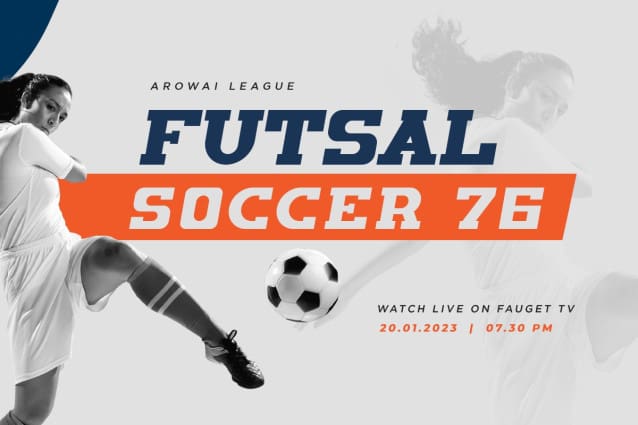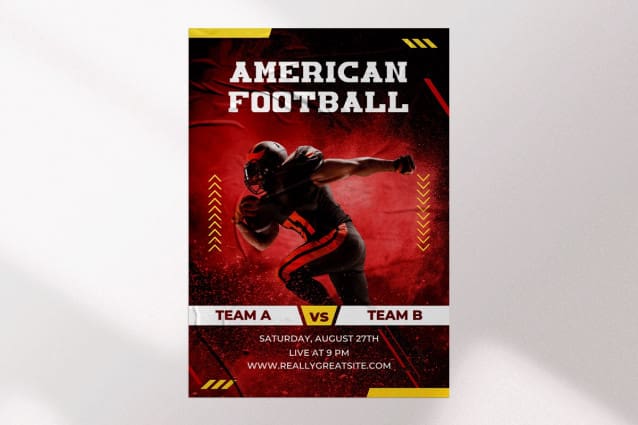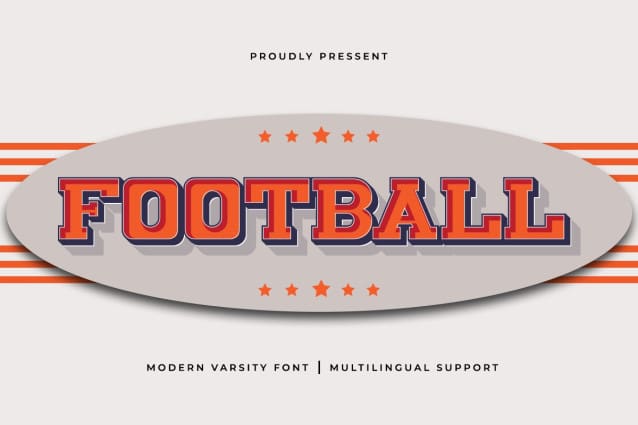
Football Font
Football Font – Modern Varsity Font was created to present a simple and modern impression to anyone who sees it. This is in line with the characteristics of the letters in the Football Font – Modern Varsity Font is very clean without unnecessary knick-knacks in each letter. This font stands tall and exudes a confident vibe. People who read various texts using this type of font don’t need to bother to be able to read and understand this font. In other words, Football Font – Modern Varsity Font is legible.
As the name suggests, the Football Font – Modern Varsity Font is proper for sports typeface. Those who like simple letters but are still cool will choose this letter. Modern vibes can use on hats, jerseys, tickets, and merchandise. This font can be printed small or large and still looks great from close up or afar. This font can be used for magazine covers and reading books.
Not only that, Football Font – Modern Varsity Font can be used as a digital font. It can be the video intro title and outro. This font is suitable for product branding. These can be product brand tags and advertising posters. This font can also use as a business card.